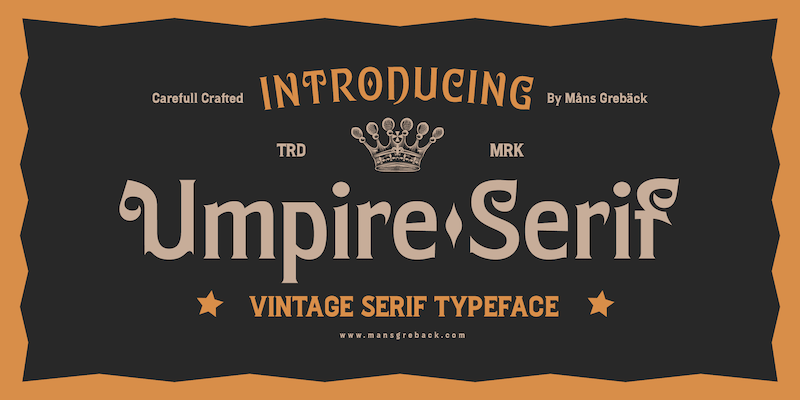
Preview and download Umpire Serif Font. Created by Måns Grebäck in Fancy Retro styles with Free for personal use license.
Font name: | Umpire Serif |
NOTE: This font is for PERSONAL USE ONLY! To purchase a commercial license, visit: http://mn.sg/umpire-serif Umpire Serif is a heavy sans-serif immersed in Victorian grandeur. Every letter carved is a testament to its solid and heavy foundation, a parade of pomp and a symbol of steadfastness. For questions, please visit www.mansgreback.com/faq |